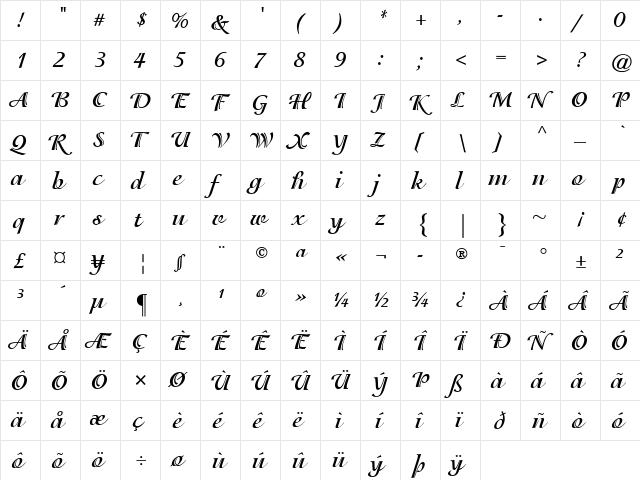
Isadora Regular Bold
Design Context for Isadora Regular Typeface
Isadora Regular is a composed and adaptable typeface that performs quietly and consistently across a wide range of design contexts. Its bold stroke weight gives it real presence on the page.